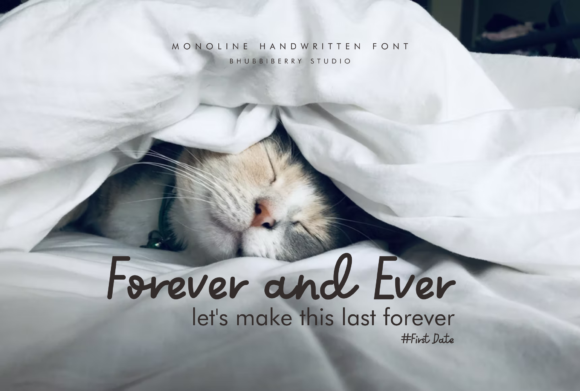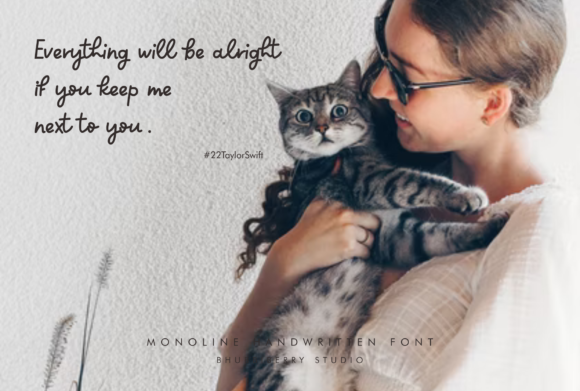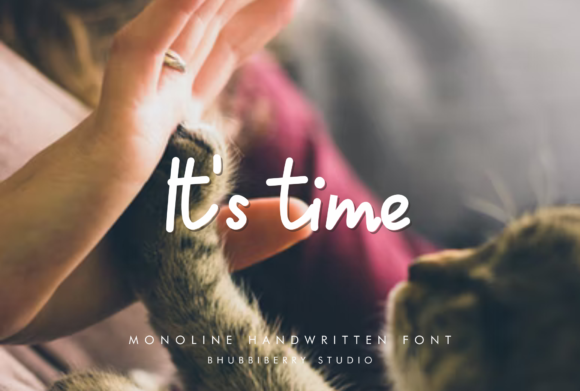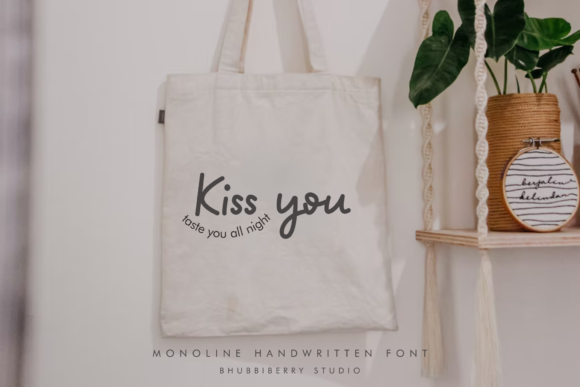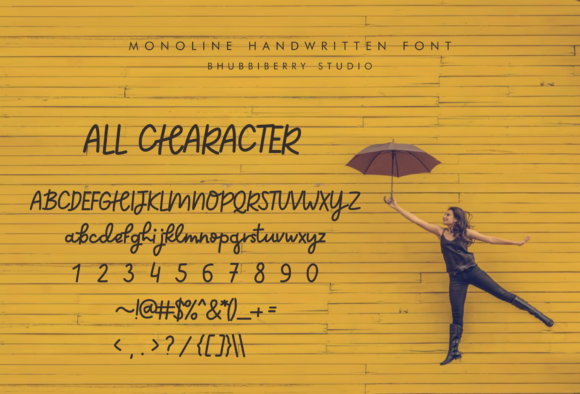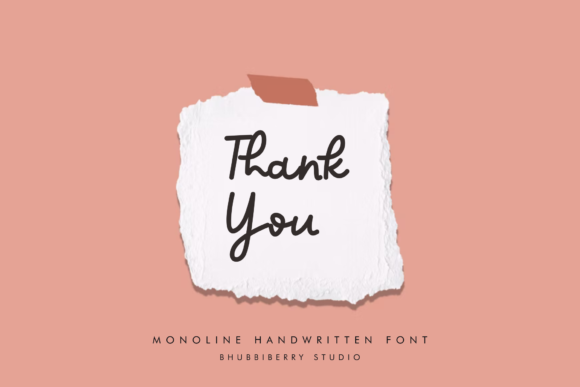
Introducing Freeya Font: A Delicate and Vintage Styled Script Font
Are you a designer or crafter looking for a font that can add a touch of elegance and sophistication to your designs? Look no further than Freeya Font, a delicate and vintage styled script font that is sure to impress. With its gorgeous looks and adaptability to various design ideas, Freeya Font is the perfect choice for a wide range of projects, from posters and flyers to invitations and more.
What is Freeya Font?
Freeya Font is a beautifully crafted script font that is inspired by the classic scripts of the past. Its delicate lines and vintage flair make it a standout choice for designers who want to add a touch of nostalgia and romance to their designs. Whether you’re creating a poster, flyer, or invitation, Freeya Font is sure to make your design look stunning.
Key Features of Freeya Font
- Delicate and Vintage Style: Freeya Font features delicate lines and a vintage flair that is sure to add a touch of elegance to your designs.
- Adaptable to Various Design Ideas: Whether you’re creating a poster, flyer, invitation, or any other type of design, Freeya Font is adaptable to a wide range of design ideas.
- Gorgeous Looks: Freeya Font is a beautifully crafted font that is sure to make your designs look stunning.
- Perfect for Posters and Flyers: Freeya Font is particularly well-suited for posters and flyers, where its delicate lines and vintage flair can really shine.
Why Choose Freeya Font?
There are many reasons why designers and crafters choose Freeya Font for their projects. Here are just a few:
- Unique and Eye-Catching: Freeya Font is a unique and eye-catching font that is sure to make your designs stand out from the crowd.
- Easy to Read: Despite its delicate lines, Freeya Font is easy to read, even at small sizes.
- Versatile: Freeya Font can be used for a wide range of projects, from formal invitations to casual posters and flyers.
- High-Quality: Freeya Font is a high-quality font that is designed to look great on any device or medium.
How to Use Freeya Font
Using Freeya Font is easy. Here are a few tips to get you started:
- Pair it with Other Fonts: Freeya Font looks great when paired with other fonts, such as sans serif fonts or bold scripts.
- Use it for Headings and Titles: Freeya Font is perfect for headings and titles, where its delicate lines and vintage flair can really shine.
- Experiment with Different Sizes and Colors: Don’t be afraid to experiment with different sizes and colors of Freeya Font to find the look that works best for your design.
- Use Freeya Font for Wedding Invitations: Freeya Font is perfect for wedding invitations, where its delicate lines and vintage flair can add a touch of romance and elegance.
- Use Freeya Font for Posters and Flyers: Freeya Font is particularly well-suited for posters and flyers, where its delicate lines and vintage flair can really shine.
- Experiment with Different Colors and Textures: Don’t be afraid to experiment with different colors and textures to find the look that works best for your design.